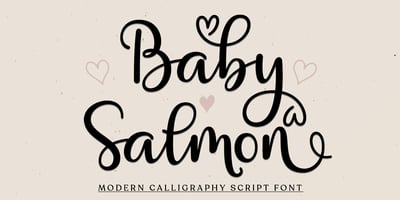
The Baby Salmon Script Font is an excellent choice for designs that demand a delicate, charming, and genuinely handcrafted feel, perfect for adding a personal touch. Imagine it gracing elegant wedding stationery, adding a sweet and inviting charm to boutique branding for baby products, or lending a whimsical touch to personalized greeting cards. It's also perfectly suited for captivating social media quotes, charming blog headers for lifestyle content, and any project where you want to evoke a sense of tenderness, warmth, and artistic flair. With its flowing lines and gentle curves, the Baby Salmon Script Font is ideal for projects that seek a soft, memorable impression.
What makes the Baby Salmon Script Font truly exciting is its ability to instantly convey intimacy and a unique, bespoke quality. It feels authentically hand-drawn, giving your designs an immediate sense of warmth and exclusivity. The natural connections between characters and the subtle variations in stroke often mimic genuine handwriting, creating a visual style that is both beautiful and highly legible at appropriate sizes. This font is perfect for establishing a brand identity that feels approachable, artistic, and genuinely heartfelt, ensuring your message is not just seen, but felt on an emotional level. The Baby Salmon Script Font Free Download offers a fantastic opportunity to infuse your projects with this distinctive charm.
The Baby Salmon Script Font family is typically designed to offer versatility while maintaining its signature delicate and flowing style. While specific family members can vary, you can often expect to find:
• Baby Salmon Script Regular
• Baby Salmon Script Bold (for added emphasis on titles or special words)
• Baby Salmon Script Slanted (or Italic, for a slightly more dynamic lean)
• Baby Salmon Script Swash (often including decorative ligatures and alternate characters to enhance its handwritten feel and provide creative flourishes)
These variations provide flexibility for different design applications, allowing you to create engaging visual hierarchies and maintain a consistent, charming aesthetic across all your projects.